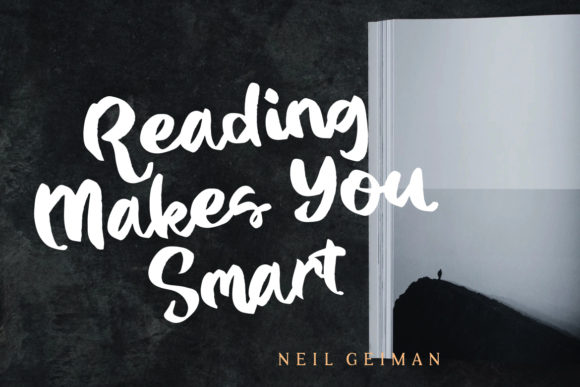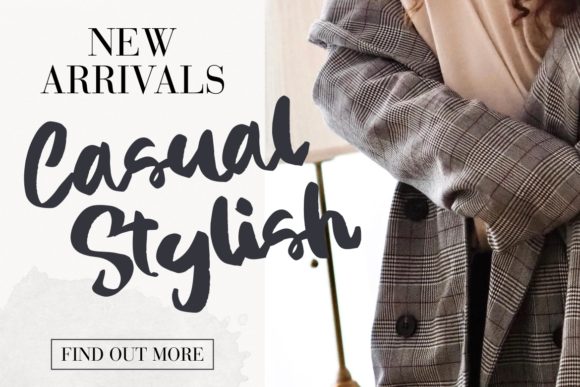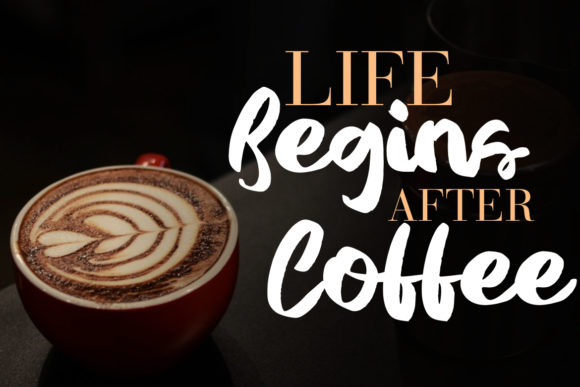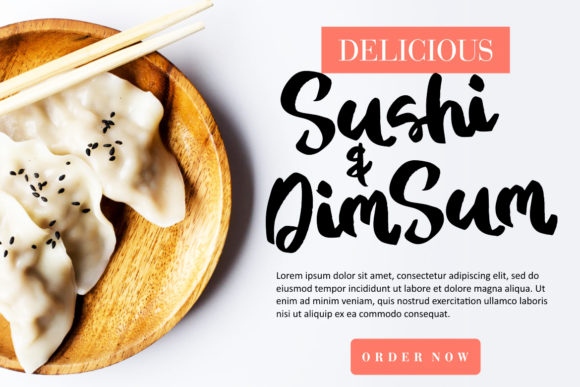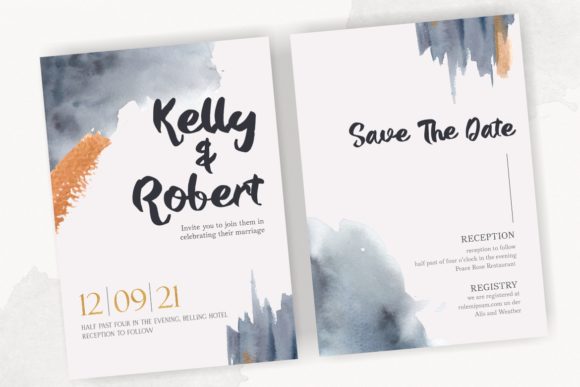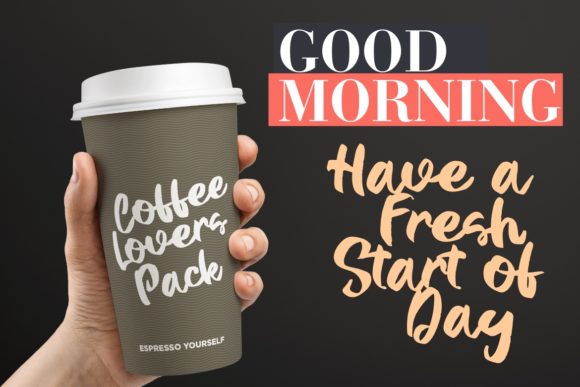
The Designer’s Delight: Uncovering the Charm of Castel Font
I’ll never forget the design project that led me to discover Castel Font. I was working on a branding project for a boutique bakery, and I was struggling to find the perfect font to capture their warm and inviting personality. That’s when I stumbled upon Castel Font, and it was love at first sight! ✨ The unique charm and authenticity it brought to my design made it an instant favorite. In this article, I’ll share my experience with Castel Font, its features, and how to make the most of it in your designs.
An Honest Review of Castel Font
- ✨ Unique and authentic handwritten feel
- 🎨 Versatile and suitable for various design projects, from branding to packaging
- 💫 Beautifully crafted with attention to detail
While Castel Font is an amazing addition to any design project, there are a few things to keep in mind: 🤔
- ⚠️ Limited availability of stylistic alternates, which might limit its use in certain designs
- ⚠️ May not be the best choice for body text, as it’s more suited for headings and titles
A Practical Guide to Using Castel Font
If you love Castel Font, you might also enjoy these similar fonts and alternatives:
- Lobster: A elegant and sophisticated script font with a similar feel to Castel Font. Use it for luxury branding and high-end designs.
- Pacifico: A beautiful and modern script font with a relaxed, beachy vibe. Use it for casual and creative designs.
- Great Vibes: A stylish and handwritten font with a similar energetic feel to Castel Font. Use it for bold and eye-catching designs.
- Alex Brush: A lovely and elegant script font with a similar handwritten feel to Castel Font. Use it for feminine and sophisticated designs.
The Backstory of Castel Font
Castel Font was designed with the intention of capturing the essence of handwritten typography. Its creator aimed to craft a font that would bring a sense of authenticity and warmth to design projects. The result is a beautiful and unique font that’s perfect for adding a personal touch to your designs.
| Font Name | Castel Font |
| Author | HansCo |
Q: What type of designs is Castel Font best suited for?
A: Castel Font is versatile and can be used for various design projects, from branding and packaging to posters and social media graphics.
Q: Is Castel Font available in different weights or styles?
A: Castel Font may have limited variations, but it’s primarily designed as a single font with OpenType features and stylistic alternates.